Selecting a font was once a brief determination. You selected the font, picked a weight, adjusted the scale, and moved on. Variable fonts exchange that workflow. One font can come with a spread of adjustable axes, and every axis adjustments one thing about how the letters are drawn.
Inside of Divi 5, the ones axes transform visible controls. Relying at the font you select, you’ll be able to stretch letters wider, squeeze them narrower, lean them ahead, spherical their corners, modify stroke density, or fine-tune a weight that sits between two conventional font types. The actual worth seems while you mix settings as a substitute of transferring one slider at a time. A simple sans can transform sharper and extra editorial. The similar font can transform softer and friendlier. A serif can use its expressive axis for headlines, then flip that persona down for frame textual content.
On this submit, we’ll stroll via 7 variable font mixtures you’ll be able to take a look at in Divi 5. Each and every instance makes use of a particular font, a particular set of axis values, and a sensible design context so you’ll be able to see how the settings paintings in combination.
What A Variable Font In reality Is
A conventional font circle of relatives is generally produced from separate font recordsdata. Common is one record, Daring is any other, Gentle is any other, and italic types might use separate recordsdata too. If you need a number of weights on one web page, the browser might wish to load a number of font recordsdata, every with a hard and fast genre.
A variable font works in a different way. It retail outlets a spread of types within one font record. As a substitute of opting for handiest Common, Medium, Daring, or Black, you’ll be able to transfer alongside the to be had vary and select the precise worth that matches the design.
That flexibility is the purpose. You get extra typographic vary from one typeface, and you’ll be able to make smaller selections than a static font circle of relatives generally permits.
The Levels Are Known as Axes
Each and every adjustable vary within a variable font is named an axis. An axis controls one a part of the font’s design, and every one has a brief tag you may even see in font documentation.
Commonplace axes come with:
- Weight: Controls how mild or heavy the strokes are.
- Width: Makes the letters narrower or wider.
- Slant: Tilts the letters with out essentially switching to a one after the other drawn italic genre.
- Optical Measurement: Adjusts the font for the scale it’s displayed at, generally making smaller textual content extra readable and bigger textual content extra delicate.
Font designers too can create customized axes. One font would possibly will let you spherical corners. Any other would possibly exchange the counters within the letters. Any other would possibly upload a playful morph, a handwritten really feel, or a pixel-like construction. Because of this variable fonts aren’t the entire similar. The font you select determines which controls are to be had.
No longer Each Font Has The Similar Axes
Some variable fonts handiest come with a Weight axis. Others come with Weight, Width, Slant, Grade, Roundness, or extra abnormal font-specific controls.
That issues within Divi 5 since the builder handiest displays the controls the chosen font helps. If a font does now not come with a Width axis, you can’t make it condensed with a variable font slider. If it does now not come with Roundness, there will probably be no roundness keep watch over to regulate.
Because of this each and every instance beneath names the font and the axis values in combination. The settings handiest paintings when the font contains the axes beneath them.
How Divi 5 Handles Variable Fonts
Divi 5 helps the most recent Google Fonts assortment, together with variable fonts and the controls they supply.
When you select a supported Google variable font within a textual content choice staff, Divi assessments which axes that font contains and displays the matching controls within the builder. A easy variable font might come up with one slider. A extra complex one might disclose a number of.
For instance, Google Sans Flex will provide you with controls equivalent to Weight, Width, Slant, Rond, and Grade. A show font might disclose one abnormal axis that adjustments the entire persona of the typeface.
The vital phase is that you do not want to memorize each and every axis a font helps prior to you get started. Make a choice the font, open the related textual content choice staff, and Divi displays the to be had controls for that font.
Extra Than Sliders: New Textual content Styling Choices
The similar Divi 5 liberate additionally added new base-level styling choices to name and frame textual content teams. Those settings paintings with variable and non-variable fonts, they usually will let you keep watch over how textual content behaves within the format. Some of the most valuable additions come with:
- Textual content Columns: Create magazine-style textual content layouts with out splitting reproduction into separate modules.
- Drop Caps: Upload and elegance massive first letters in frame textual content.
- Textual content Course: Create vertical textual content therapies.
- Stroke Place: Regulate whether or not textual content strokes take a seat targeted or outdoor the letters.
- Capitalization: Practice extra particular capitalization types.
- Paragraph And Checklist Spacing: Regulate spacing between paragraphs and record pieces.
- Hyphenation: Lend a hand lengthy phrases wreck extra cleanly within slender boxes.
- Line Wrap Taste: Regulate how textual content breaks throughout strains.
Recall to mind it this manner: variable font axes form the letters themselves. Divi 5’s textual content styling choices form how the ones letters take a seat within the format.
7 Variable Font Atmosphere Mixtures To Take a look at In Divi 5
Something to kind out prior to you get started: axis values are adjusted immediately within the variable font controls. Your textual content sizes, line heights, spacing, and colours can nonetheless use Design Variables the place supported, however the variable font axis values themselves will have to be handled as a part of the typography genre you save.
As soon as a mix seems to be proper, put it aside as an Possibility Team Preset. That method, you’ll be able to follow the typography remedy later with out re-entering a number of axis values through hand.
1. Construct A Complete Web page With Google Sans Flex
Google Sans Flex is a sturdy start line as it contains a number of sensible axes. You’ll be able to modify weight, width, slant, roundness, and grade, which makes it helpful for development a complete web page from one typeface. For this situation, we’ll apply it to a consultant-style web page and create 3 textual content ranges: a big identify or hero heading, a piece heading, and frame textual content.
Select Google Sans Flex from the Heading Font dropdown. The variable font controls seem beneath. Get started with the hero heading. Set the heading point to H1, set Heading Textual content Measurement to 10vw, and set Heading Line Top to 1em so the strains take a seat shut in combination. Use those variable font settings:
- Variable Font Weight: 550
- Variable Font Width: 115
- Variable Font Slant: 0
- Variable Font Rond: 0
- Variable Font Grade: 100
Width does essentially the most visual paintings right here. At 115, the letters stretch sideways and fill extra of the road. The load remains at 550, which helps to keep the strokes open as a substitute of overly heavy. Grade at 100 provides density with out widening the letters, which is helping the heading really feel more potent with out forcing a brand new line wreck.
Rond remains at 0, preserving the corners sharper and extra businesslike. Now use the similar font for the phase heading, however pull again the burden:
- Variable Font Weight: 420
- Variable Font Width: 111
- Variable Font Grade: 80
- Heading Textual content Measurement: 60px
The phase heading helps to keep the similar common proportions, but it surely reads as a degree beneath the hero since the strokes are lighter and the scale is smaller.
For frame textual content, slender the letters and lift the burden:
- Variable Font Weight: 600
- Variable Font Width: 86
- Variable Font Grade: 40
- Textual content Measurement: 17px
Width at 86 suits extra phrases on every line, which is helping longer paragraphs. Slim letters can glance lighter at small sizes, so the burden will increase to 600. Grade drops to 40 as a result of frame textual content does now not want the similar further density as a big heading.
Now the web page has 3 ranges from one font: a large hero heading, a lighter phase heading, and a narrower frame genre. They really feel attached since the underlying letterforms are the similar, however every point has its personal position.
Price attempting: Return to the hero heading and pull Variable Font Rond from 0 to 100 whilst leaving the opposite settings in position. The corners spherical off, the stroke endings melt, and the similar web page shifts from sharp and technical to friendlier and extra open.
This is the good thing about the use of a multi-axis font. You’ll be able to exchange the sensation of all the typography device with out switching typefaces.
2. Open Up The Letters With Science Gothic
Science Gothic will provide you with axes for weight, width, slant, and Ctrs. Ctrs refers to counters, which might be the enclosed areas within letters like o, e, a, and p. While you modify the Ctrs axis, the ones interior areas open or shut whilst the outdoor of the letter remains extra managed. That suggests you’ll be able to exchange how open the textual content feels with out dramatically converting how a lot room it takes up.
Here’s the hero setup for a tech touchdown web page:
- Variable Font Weight: 420
- Variable Font Width: 99
- Variable Font Slant: 0
- Variable Font Ctrs: 0
- Heading Textual content Measurement: 73px
- Heading Line Top: 1.2em
The scale offers the heading presence, whilst Ctrs at 0 helps to keep the counters tight and the letterforms squared off. That’s what offers the heading its machine-like tone. Now transfer the Ctrs slider by itself and watch letters like o and e. Drag it steadily somewhat than leaping to a last quantity, since the exchange is more uncomplicated to grasp in movement.
For the phase heading, make the other transfer: thinner and wider.
- Variable Font Weight: 320
- Variable Font Width: 116
- Variable Font Slant: 0
- Variable Font Ctrs: 0
- Heading Textual content Measurement: 48px
Weight at 320 with width at 116 spreads the heading around the column with out making it really feel heavier. Skinny and vast reads quieter than cast and upright, which is helping it take a seat beneath the hero.
For frame textual content, slender the letters go into reverse:
- Variable Font Weight: 333
- Variable Font Width: 85
- Variable Font Ctrs: 0
- Textual content Measurement: 17px
The frame weight remains as regards to the phase heading so the 2 really feel similar. All 3 ranges stay Ctrs at 0, which carries the squared-off visible language from the headline right down to the paragraph.
Science Gothic additionally features a Slant axis, however this sort of vast technical typography steadily works absolute best upright. Go away Slant at 0 except the format wishes a way of motion.
3. Effective-Song Roboto Flex For A Weblog Feed
Roboto Flex will provide you with a large set of controls. In conjunction with weight, width, slant, and grade, it exposes extra detailed axes equivalent to Skinny Stroke, Thick Stroke, lowercase top, and different fine-tuning controls. The ones stroke controls are particularly helpful in editorial layouts as a result of a masthead, submit name, and paragraph every want other quantities of distinction and clarity.
For the weblog masthead, take a look at:
- Variable Font Weight: 595
- Variable Font Width: 135
- Variable Font Slant: -5
- Variable Font Grade: 27
- Variable Font Skinny Stroke: 25
- Variable Font Thick Stroke: 127
The vast hole between Skinny Stroke and Thick Stroke offers the letters extra distinction. The uprights and curves really feel fuller, whilst the connecting strokes keep thinner. Width at 135 spreads the masthead out, and Slant at -5 offers it a refined lean with out making the entire format really feel risky.
Publish titles want that distinction pulled again:
- Variable Font Weight: 500
- Variable Font Width: 100
- Variable Font Slant: 0
- Variable Font Grade: 0
- Variable Font Skinny Stroke: 86
- Variable Font Thick Stroke: 96
- Heading Textual content Measurement: 42px
The stroke values are handiest ten issues aside, which makes the titles really feel extra even. That issues in a weblog feed as a result of readers are scanning a number of titles in a row, and the phrases wish to land prior to the letterform main points do.
Frame textual content closes the stroke distinction even additional:
- Variable Font Weight: 400
- Variable Font Width: 100
- Variable Font Grade: 0
- Variable Font Skinny Stroke: 90
- Variable Font Thick Stroke: 92
- Textual content Measurement: 17px
At frame dimension, skinny strokes are the very first thing to vanish on smaller or dimmer displays. Maintaining Skinny Stroke and Thick Stroke shut in combination makes the letters really feel extra even and readable.
The masthead and frame textual content take a seat at reverse ends of the similar concept. Huge textual content can maintain extra distinction and persona. Small textual content generally wishes the settings pulled again so the paragraph remains relaxed to learn.
4. Stay It Easy With Inter
No longer each and every variable font wishes an extended panel of sliders. Inter is a superb instance. It’s constructed for displays and interfaces, and its primary sensible keep watch over is weight. That may be sufficient. An tournament registration web page runs on hierarchy. The headline must really feel quick. The subheading must sign up as a label. The frame reproduction and costs wish to keep transparent.
Use Inter for the total web page and set the weights through position:
- Heading, Variable Font Weight: 900
- Subheading, Variable Font Weight: 400
- Frame, Variable Font Weight: 400
Weight at 900 offers the heading sufficient drive, particularly on a depressing background. The subheading above it remains lighter as a result of this can be a supporting label, now not the principle message. Frame textual content remains at 400, the place Inter is maximum relaxed for studying.
This situation is deliberately easy. A variable font does now not want 5 axes to be helpful. Infrequently the precise weight vary is sufficient to construct a blank hierarchy.
5. Flip Wonk On And Off With Fraunces
Fraunces is a serif variable font with expressive axes, together with Wonk and Comfortable. Wonk adjustments particular letterforms. At 0, Fraunces behaves like a cleaner serif. At 1, some letters transform extra off-kilter and editorial. That makes it nice for headlines, but it surely will have to be treated moderately in long-form textual content.
For the headline, flip Wonk on:
- Variable Font Weight: 700
- Variable Font Comfortable: 0
- Variable Font Wonk: 1
- Heading Textual content Measurement: 70px
The exchange can really feel refined to start with, then arduous to unsee. Maximum letters keep acquainted, whilst a couple of upload the persona. Comfortable remains at 0 so the corners stay their edge. For the byline, stay Wonk on however cut back the burden:
- Variable Font Weight: 500
- Variable Font Comfortable: 0
- Variable Font Wonk: 1
At a smaller dimension, the bizarre letterforms are nonetheless visual, however they aren’t loud. The load at 500 helps to keep the byline sitting beneath the headline.
For frame textual content, flip Wonk off:
- Variable Font Weight: 400
- Variable Font Comfortable: 0
- Variable Font Wonk: 0
The similar quirk that makes Fraunces fascinating in a headline can decelerate studying in a paragraph. Turning Wonk off offers the frame textual content a calmer, extra relaxed serif voice.
Yet one more axis is value trying out: Comfortable. Push Comfortable up at the headline and the corners spherical off. Fraunces turns into hotter with out shedding its serif construction, which will paintings smartly for meals, way of life, editorial, or boutique logo layouts.
The helpful trend right here is discreet: flip the persona up the place the textual content is huge, then flip it down the place other folks wish to learn for longer.
6. Lean The Letters With Recursive
Slant and italic aren’t the similar factor. Italic types are steadily one after the other drawn letterforms. Slant tilts the prevailing letterforms. Recursive makes that distinction simple to peer. Transfer the Slant slider slowly and the letter shapes keep similar as they lean ahead.
Recursive additionally contains Informal, which softens the font’s persona as you lift it. That will provide you with two other ways to create distinction: movement via Slant and tone via Informal. For a tech corporate web page, let the heading lean whilst the frame textual content remains upright. For the phase heading:
- Variable Font Weight: 700
- Variable Font Slant: -15
- Variable Font Informal: 0
- Heading Textual content Measurement: 44px
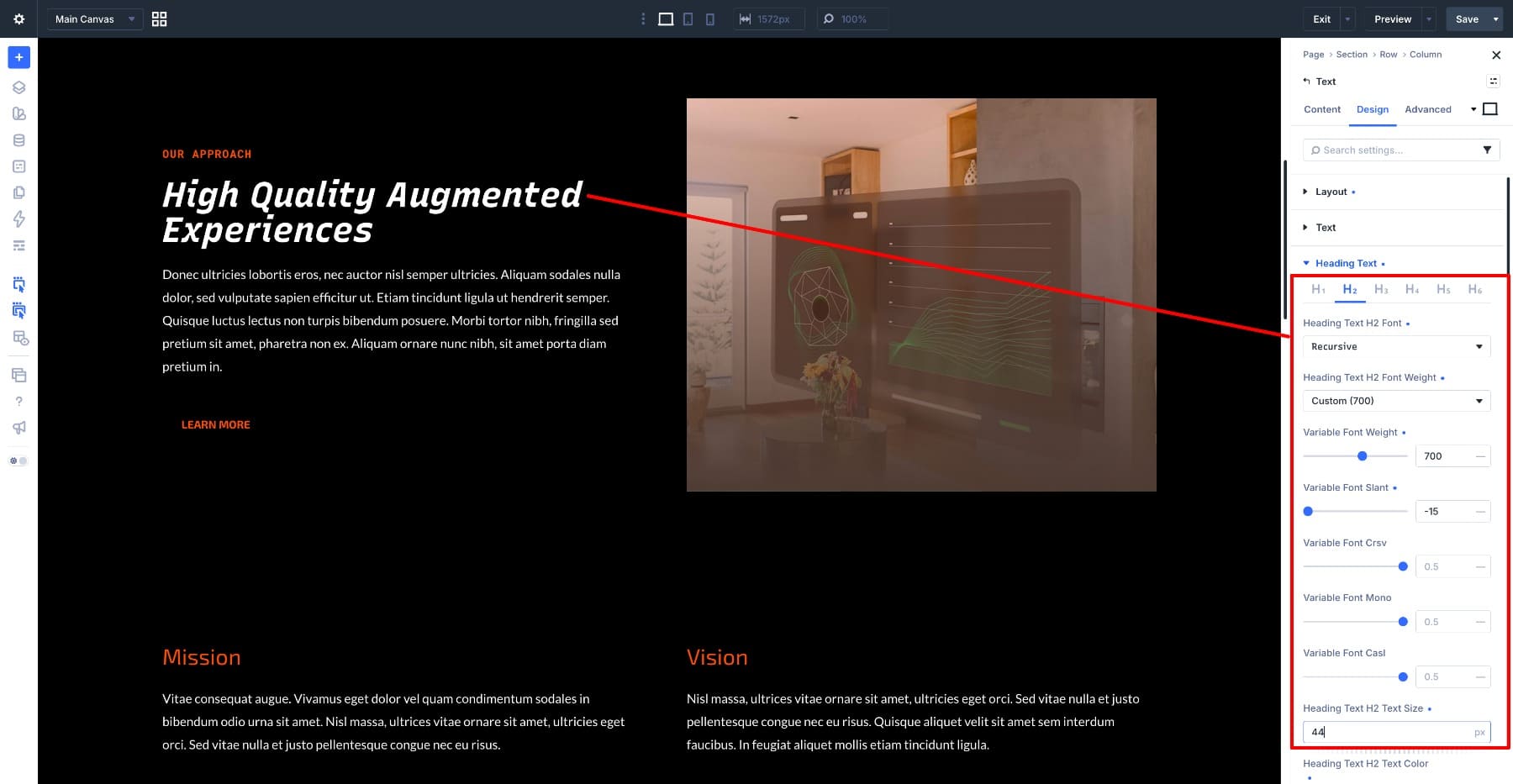
Weight at 700 issues as a result of a mild slanted heading can glance risky. The heavier weight offers the attitude sufficient construction.
For the subheading, repeat the slant:
- Variable Font Weight: 600
- Variable Font Slant: -15
- Variable Font Informal: 0
- Textual content Measurement: 14px
A brief subheading is a superb position to copy the attitude as it reinforces the remedy with out making lengthy textual content tiring. Building up letter spacing if the subheading is uppercase, since small all-caps textual content generally wishes more space.
For the frame textual content, flip the slant off:
- Variable Font Weight: 400
- Variable Font Slant: 0
- Variable Font Informal: 0
That is what makes the slant really feel intentional. The heading leans, the supporting label echoes it, and the paragraph remains nonetheless underneath either one of them.
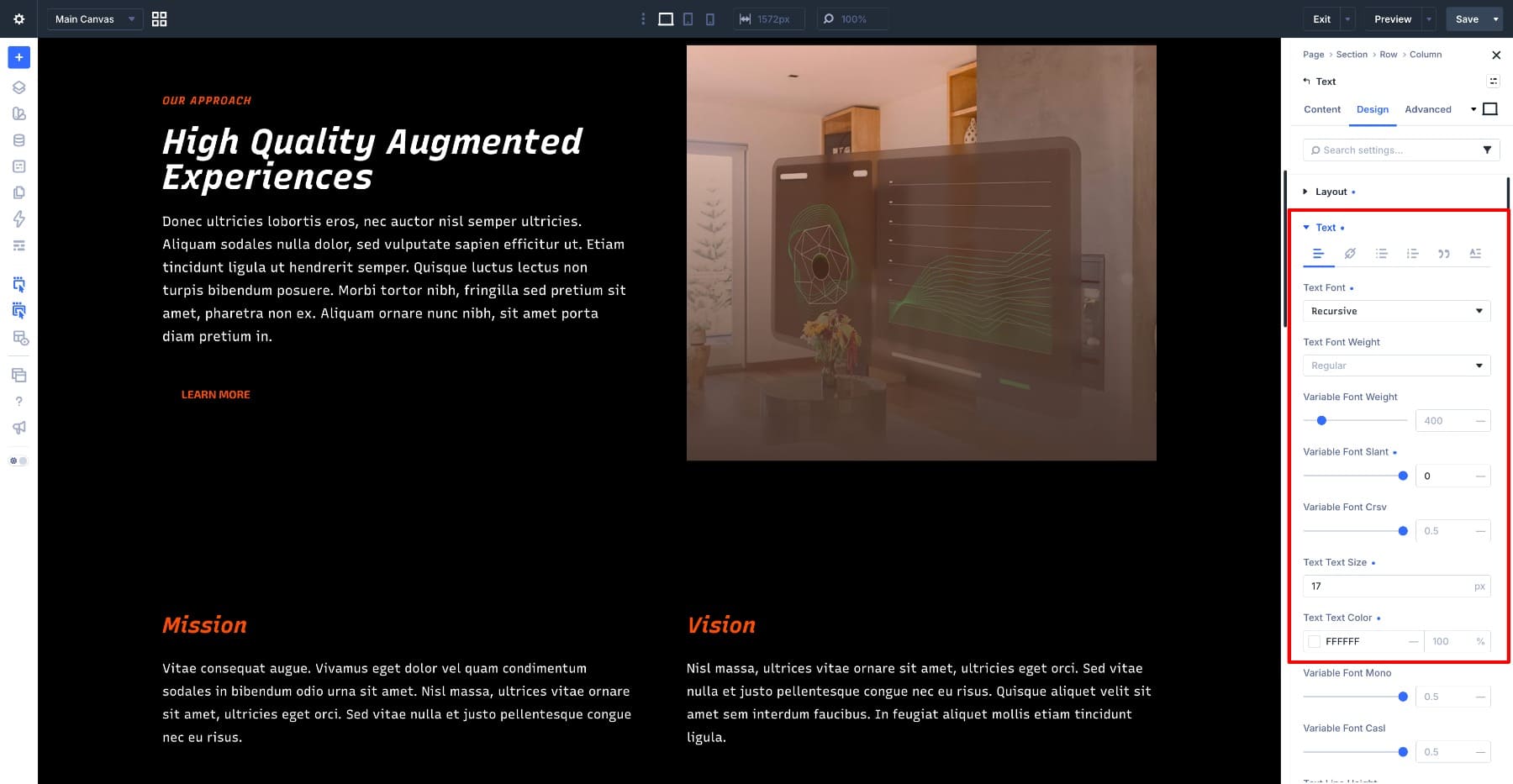
Then check Informal. Push it up at the heading whilst Slant remains at -15. The letters melt and shift from engineered to extra hand-drawn. A center worth can paintings smartly for product pages that desire a technical construction with out feeling chilly.
Recursive additionally features a Mono axis. Set it to 1 for specifications blocks, code snippets, or technical labels the place each and every personality will have to take the similar width.
7. Pass Skinny And Extensive With Bricolage Ugly
Bricolage Ugly will provide you with weight, width, and optical dimension. Its decrease weight vary makes it helpful for layouts that want a masthead that feels massive, chic, and ethereal as a substitute of loud. For a modeling company web page, construct the hierarchy through taking weight away as a substitute of including it. For the masthead:
- Variable Font Weight: 300
- Variable Font Width: 100
At 300, the strokes are mild sufficient to really feel delicate. Set massive in all caps, the heading fills the display screen with out shouting. For the phase heading:
- Variable Font Weight: 200
- Variable Font Width: 87.5
The load drops to 200, and the width narrows to 87.5. That makes the phase heading quieter than the masthead with out depending handiest on dimension. For frame textual content:
- Variable Font Weight: 250
- Variable Font Width: 87.5
The frame textual content is reasonably heavier than the phase heading, which might sound backwards till you notice it at studying dimension. Small textual content loses visible power quicker than massive textual content, so 250 helps to keep the paragraph cast. The width remains at 87.5, so the frame textual content and phase heading nonetheless really feel like a part of the similar device.
This web page by no means will get heavier than 300. The hierarchy comes from percentage, dimension, spacing, and reticence.
Running With Variable Fonts In Divi 5
A couple of behavior make variable fonts more uncomplicated to make use of.
- In finding The Variable Fonts First: On Google Fonts, use the variable fonts clear out prior to opting for a typeface. Open the specimen web page and take a look at which axes the font helps. Equipment like Wakamai Fondue too can check out a font record and record its axes, levels, and lines.
- Let The Axes Make a decision What You Construct: Paintings backward from the design drawback. If you want condensed headings, select a font with a Width axis. If you want softer typography, select a font with Roundness, Softness, or a equivalent keep watch over.
- Transfer One Slider At A Time: When a font has a number of axes, don’t drag the whole thing directly. Transfer one environment, take a look at what modified, then modify the following one.
- Set The Large Textual content First: Axis adjustments are more uncomplicated to peer at show sizes. Get the headline proper first, then pull the settings again for phase headings, labels, and frame reproduction.
- Flip Down Character For Frame Textual content: Roundness, Wonk, Slant, Informal, and different expressive axes can paintings fantastically in headings, however they steadily wish to be diminished for paragraphs.
- Save Each and every Aggregate As A Preset: A complete typography remedy can come with a number of axis values. Save one Possibility Team Preset in keeping with position, equivalent to Hero Heading, Phase Heading, Subheading, or Frame Textual content, so the settings will also be reused persistently.
- Use One Font For Extra Than One Task: Ahead of including a 2nd font, take a look at whether or not the present variable font can maintain the task with a special weight, width, grade, slant, or persona environment.
Variable fonts praise planned changes. The most efficient effects generally come from a couple of transparent settings repeated around the web page, now not a special axis worth on each and every module.
One Font, As Many Appears to be like As You Want
Maximum websites upload a 2nd font since the first one feels incorrect in a single position. The headline wishes extra presence. The frame textual content feels too heavy. The phase heading must stretch wider or take a seat quieter. With a variable font, that hole could also be one slider away.
The 7 examples above display other ways to make use of that flexibility in Divi 5. Google Sans Flex can construct a complete web page and shift from sharp to pleasant. Science Gothic can tighten or open its counters. Roboto Flex can fine-tune stroke distinction throughout a weblog feed. Inter can construct hierarchy with weight by myself. Fraunces can flip Wonk on for headlines and stale for paragraphs. Recursive can lean headings whilst preserving frame textual content upright. Bricolage Ugly can create a sublime device through staying skinny and vast.
Ahead of you return to the font dropdown, open the variable controls at the font you already selected. You might be able to create the hierarchy, tone, and variation you want with out switching typefaces in any respect.